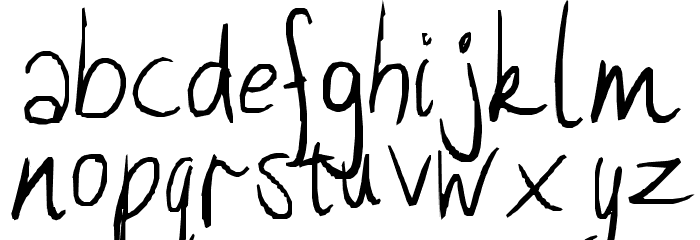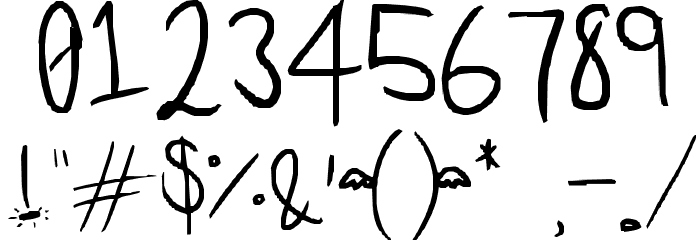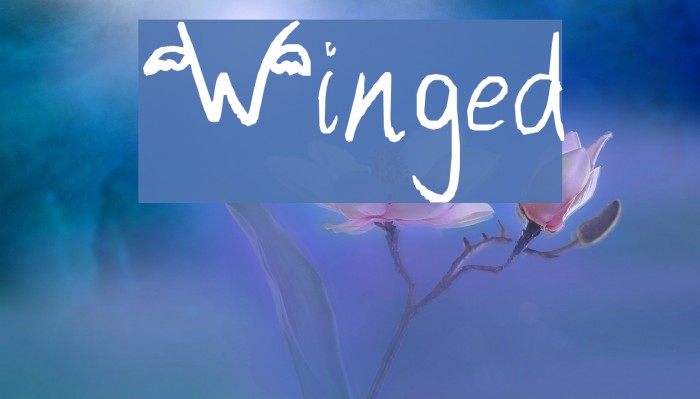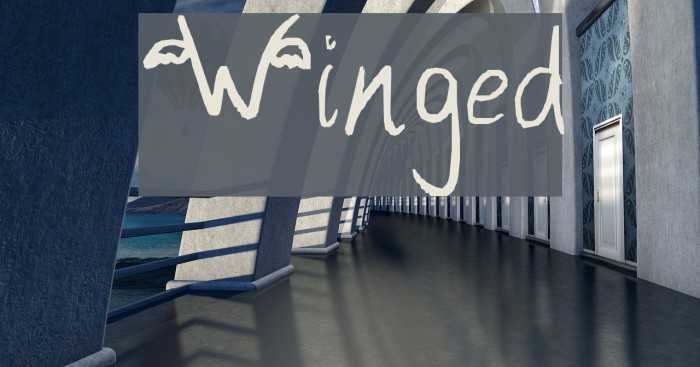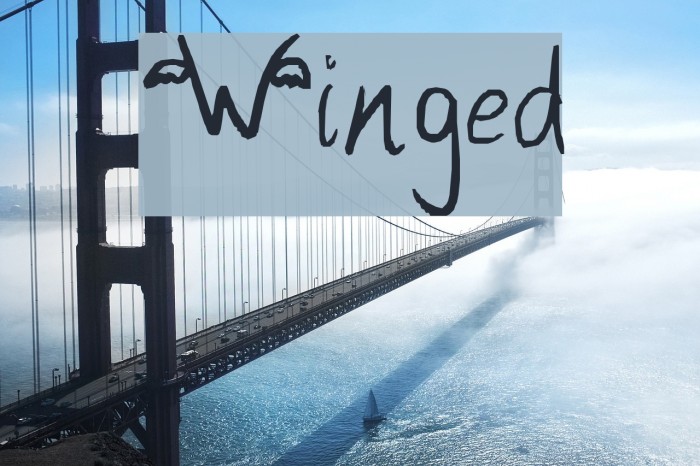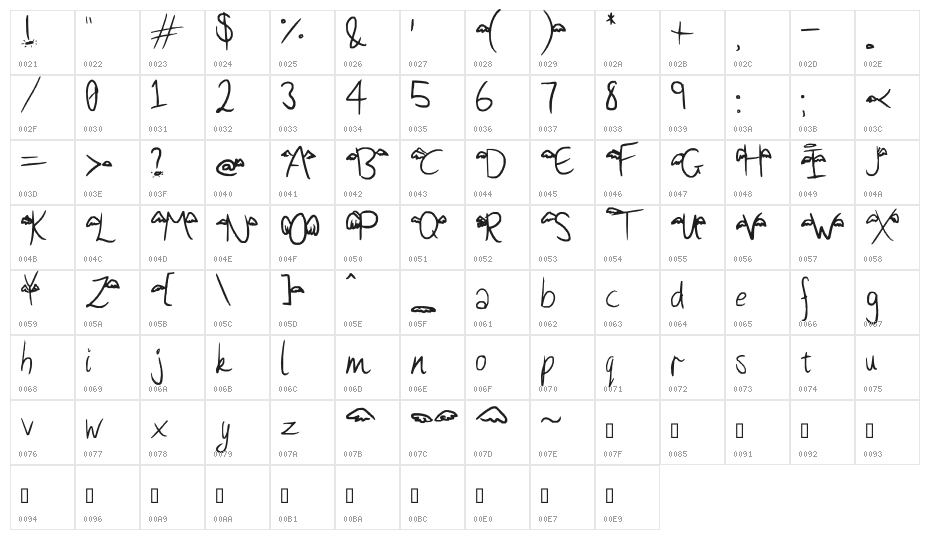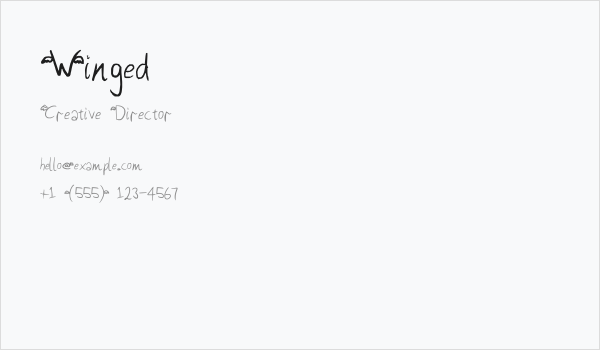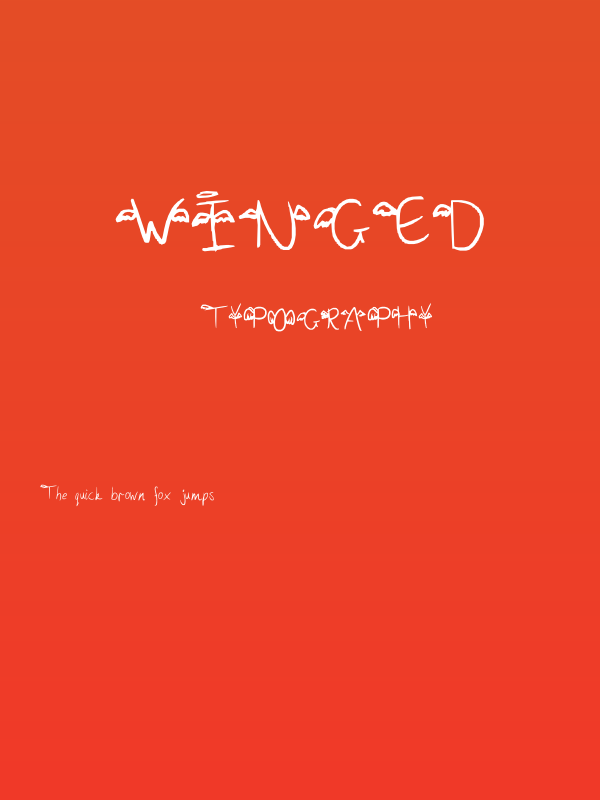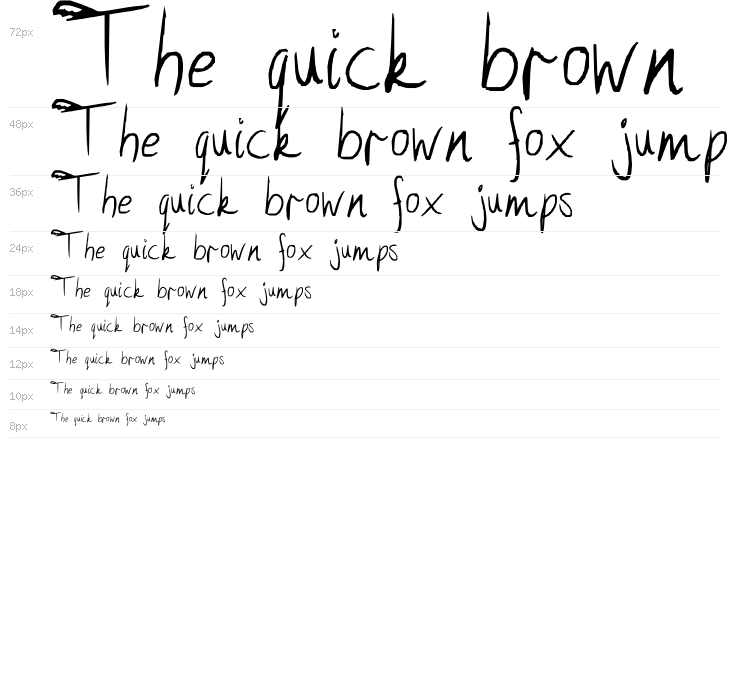
Winged Font
This font features a unique and whimsical design, characterized by its playful and decorative elements. The uppercase letters are adorned with wing-like extensions, giving them a fantastical appearance. The lowercase letters maintain a more casual, handwritten style, providing a nice contrast to the ornate uppercase. The numbers and special characters follow suit, with a mix of decorative and handwritten qualities. This font's distinct style makes it stand out, offering a blend of creativity and elegance. It's perfect for projects that require a touch of fantasy or a personalized, artistic flair.
A whimsical, decorative font with wing-like accents and a handwritten touch.
- Proposed Projects: Ideal for fantasy-themed designs, children's book covers, greeting cards, and creative branding.
- Use Case: Headlines, Logos, Artistic projects